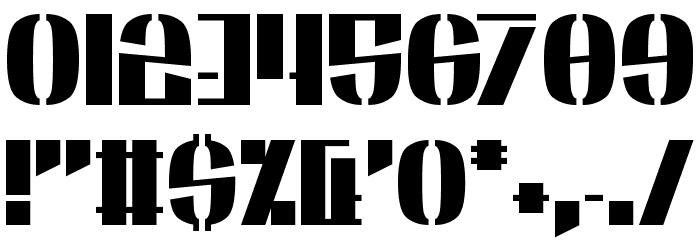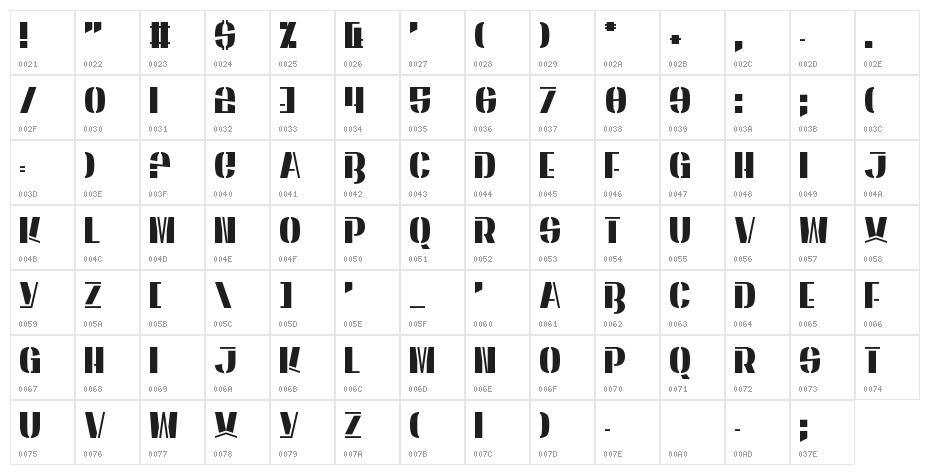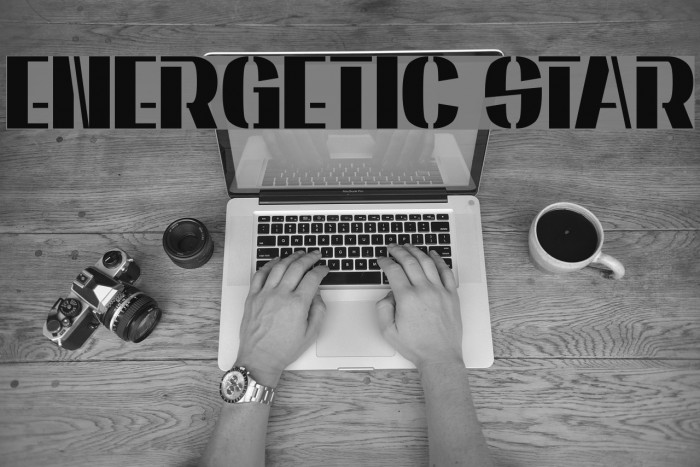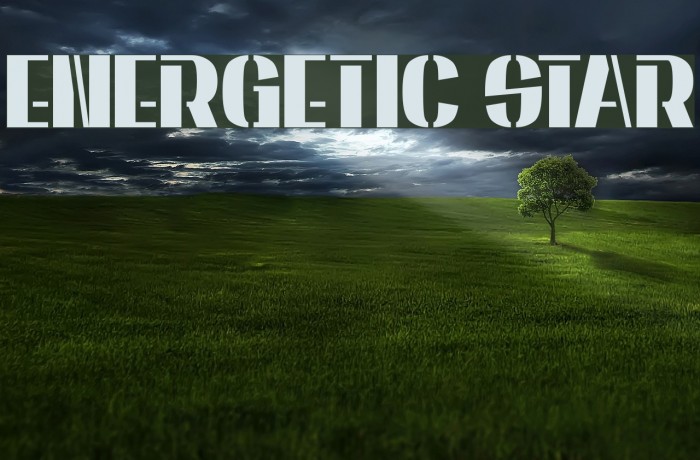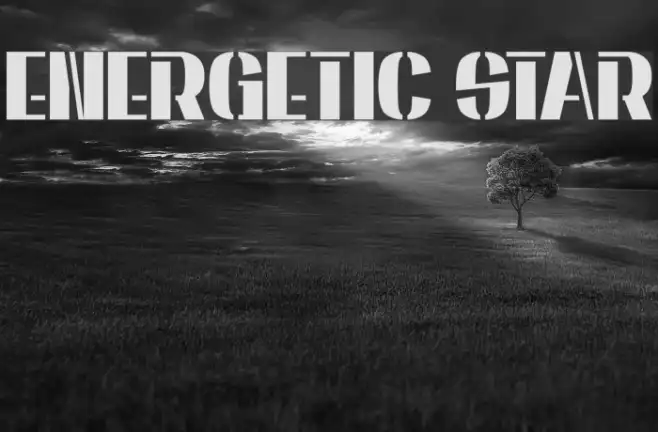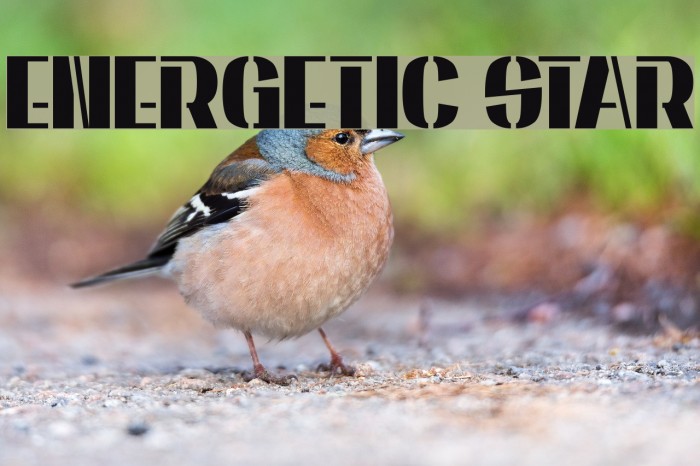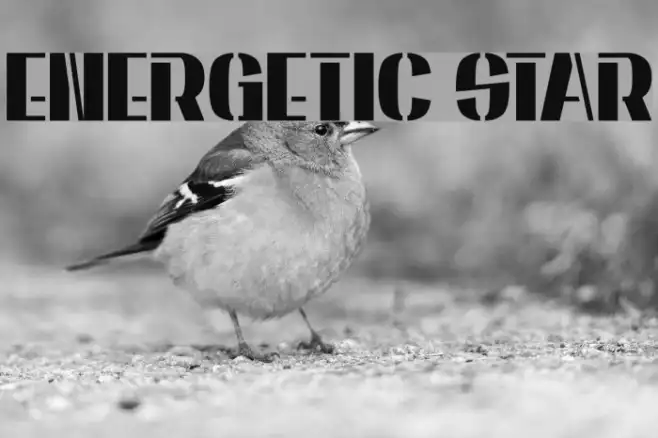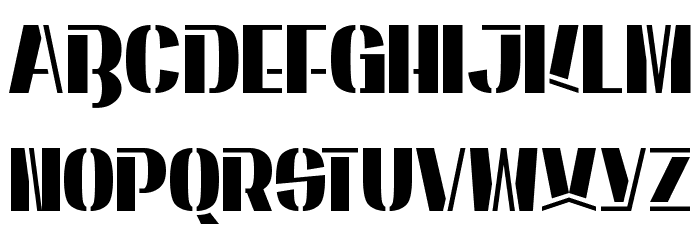
Energetic Star Font
Energetic Star Description
This bold and striking font features a stencil-like design with sharp, angular cuts and high contrast between thick and thin strokes. The uppercase letters are particularly eye-catching, with unique geometric shapes that create a sense of movement and energy. The numbers and special characters maintain this dynamic style, making the font versatile for various creative applications. Its boldness and distinctiveness make it ideal for projects that require a strong visual impact.
| Proposed Projects | Ideal for posters, branding, packaging, and any design needing a bold statement. |